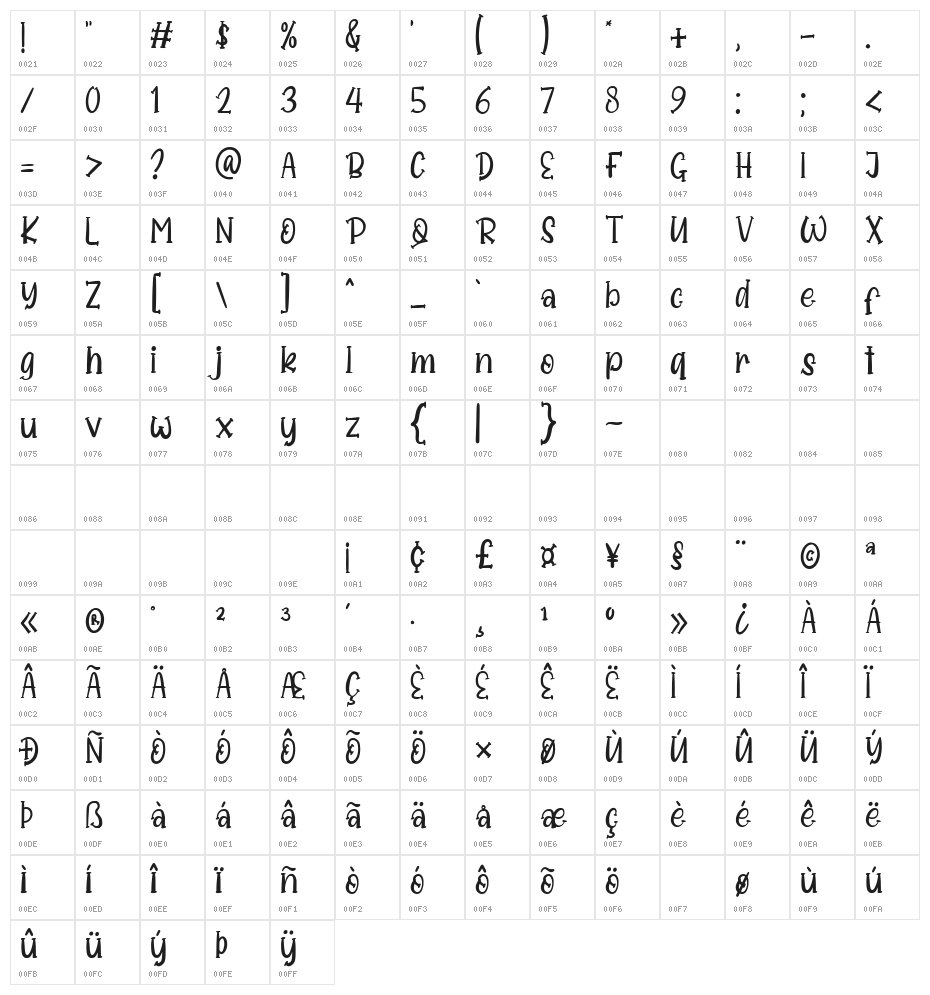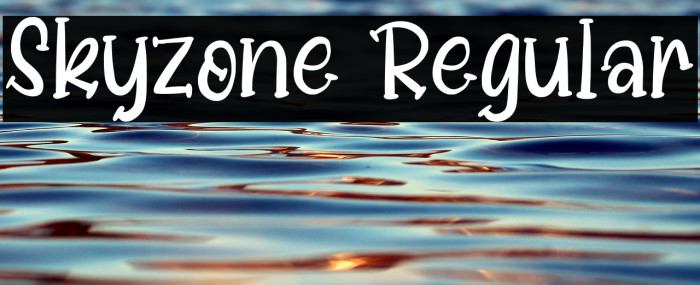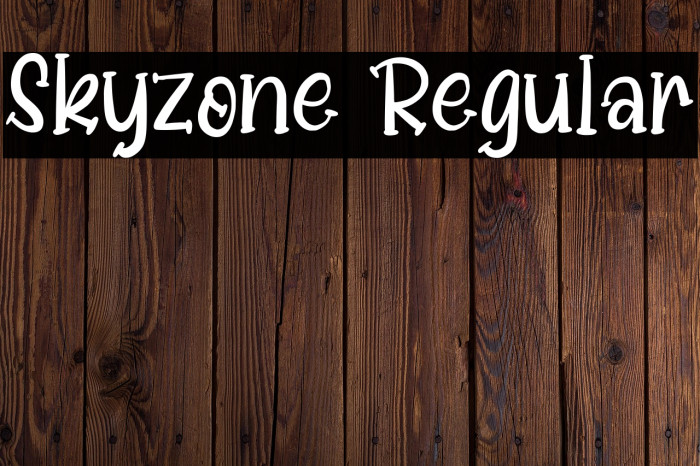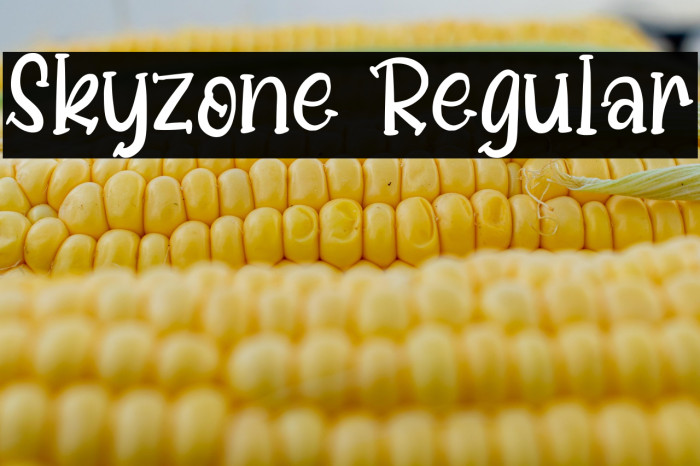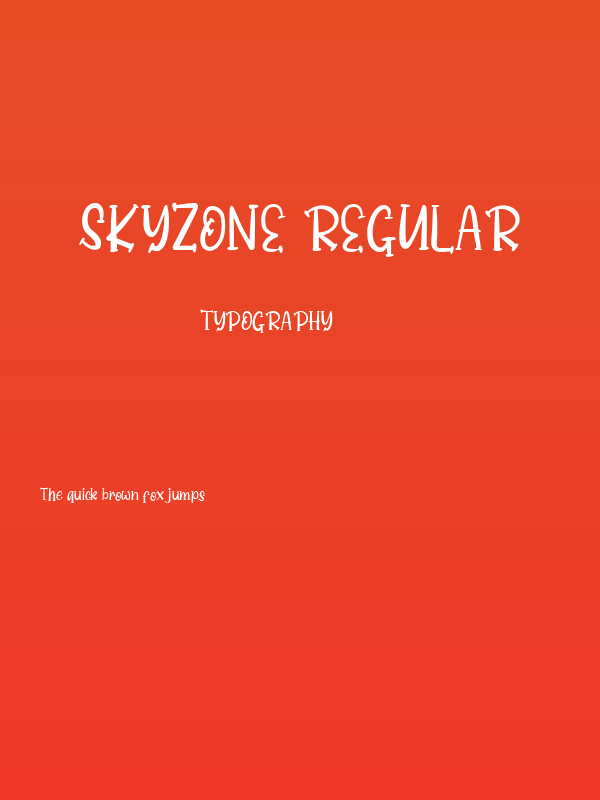
Skyzone Regular Font
Skyzone Regular Description
This font features a playful and whimsical style with a handwritten appearance. The characters are slightly irregular, adding a casual and friendly feel. The uppercase letters are bold and prominent, while the lowercase letters maintain a consistent flow. The numbers and special characters are designed to match the overall playful aesthetic, making them suitable for creative projects. The strokes are moderately thick, providing good readability while maintaining the font's unique charm.
| Proposed Projects | Ideal for children's books, greeting cards, playful branding, and creative posters. |